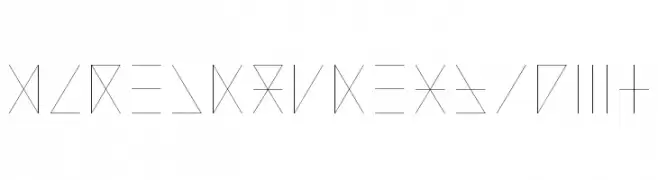
Daedric Runes Font
A mystical, rune-inspired font with sharp, angular characters and a magical, decorative style.
Comic Runes Font
A playful, runic-inspired font with bold, geometric characters.
Eldar Runes Font
A mystical, rune-like font with geometric and decorative elements.
Runic Complation Normal Font
A classic serif font with elegant strokes and timeless appeal.
Cthulhu Runes Font
A cryptic and intricate font with rune-like symbols, ideal for mysterious and fantasy themes.
Dwarven Runes Font
A bold, angular font inspired by ancient runic scripts, perfect for fantasy themes.
AngloSaxon Runes Font
A font inspired by ancient Anglo-Saxon runes, featuring angular and geometric shapes.
Moon-Runes Font
A decorative font inspired by ancient runes, featuring bold, angular characters.
RuneScape UF Regular Font
A pixelated, retro font inspired by classic video game typography.
Wizard Runes-1 Font
A mystical, rune-like font with flowing, calligraphic letters and bold numbers.
Dwarf Runes Font
A geometric, angular font inspired by ancient runic alphabets, perfect for fantasy themes.
Germanic Runes Font